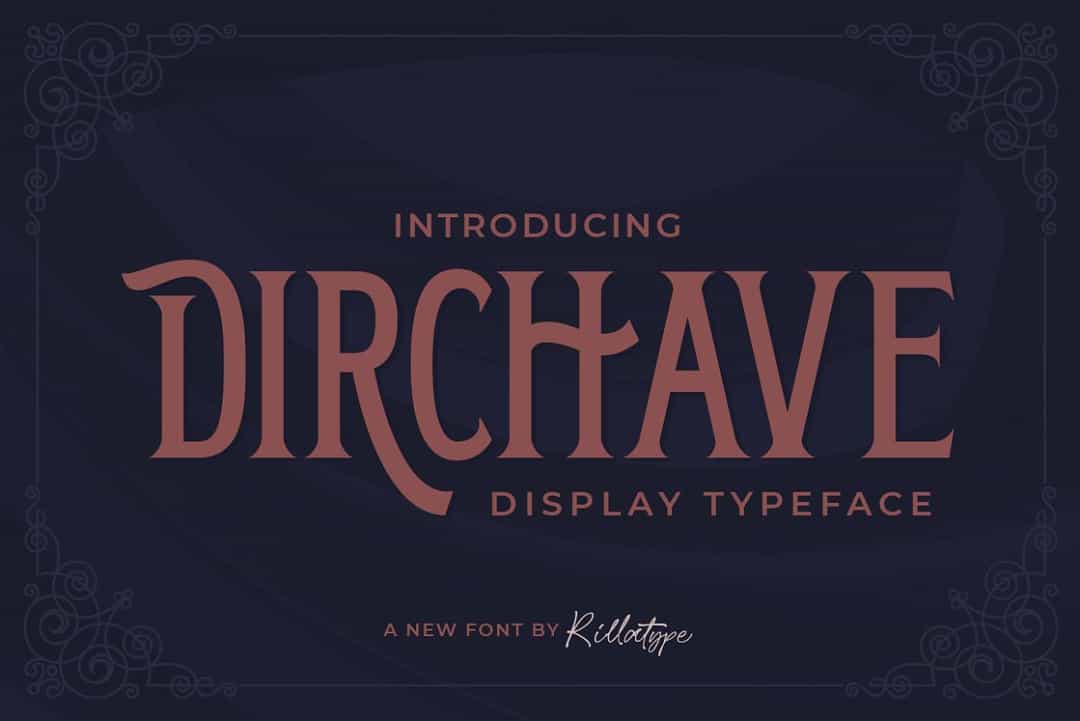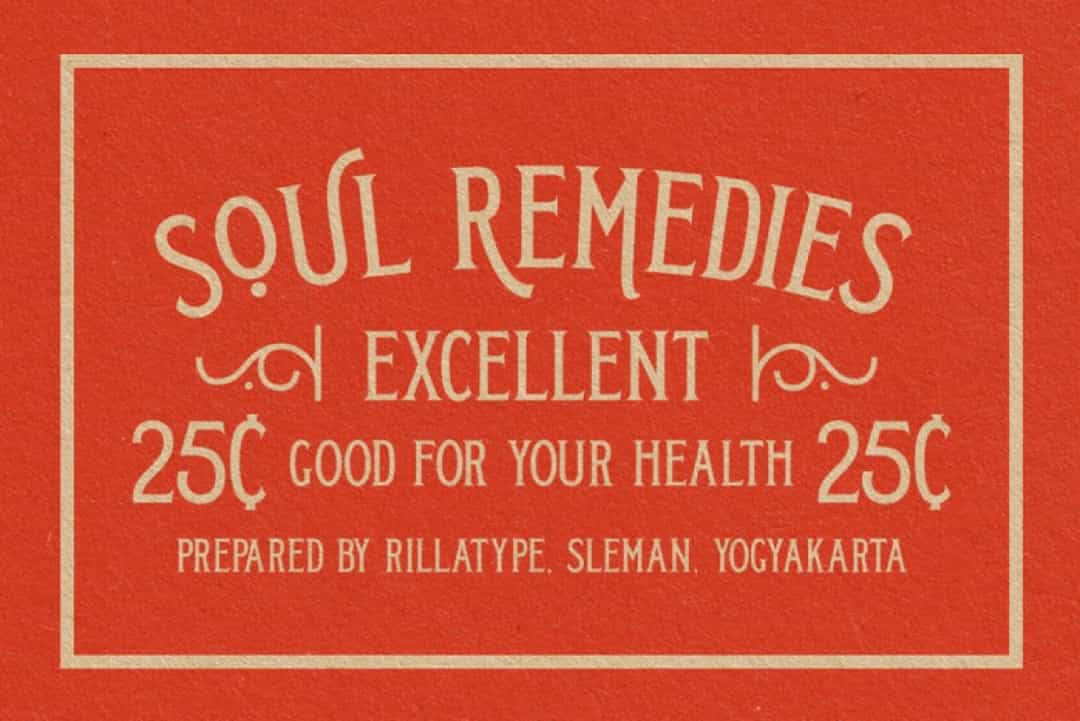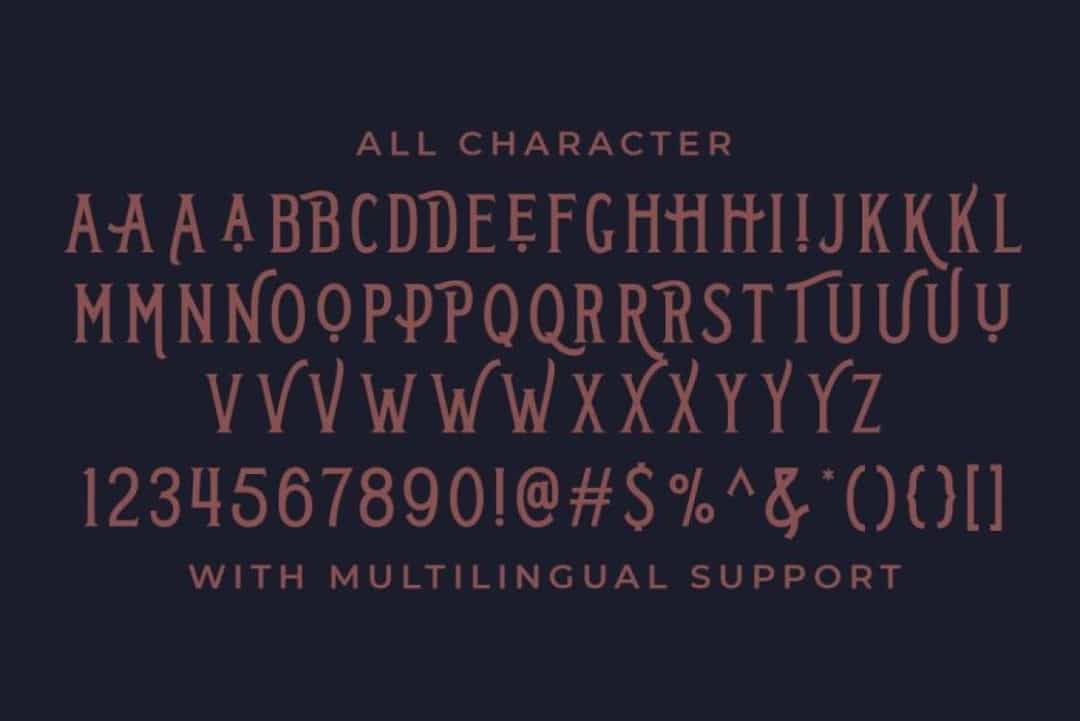
Dirchave Display Typeface is an engaging vintage-styled and thick serif typeface. If you are searching for an ideal typeface that can be applied across packaging, apparel labels, branding projects and labels etc then Dirchave may just be perfect for you!